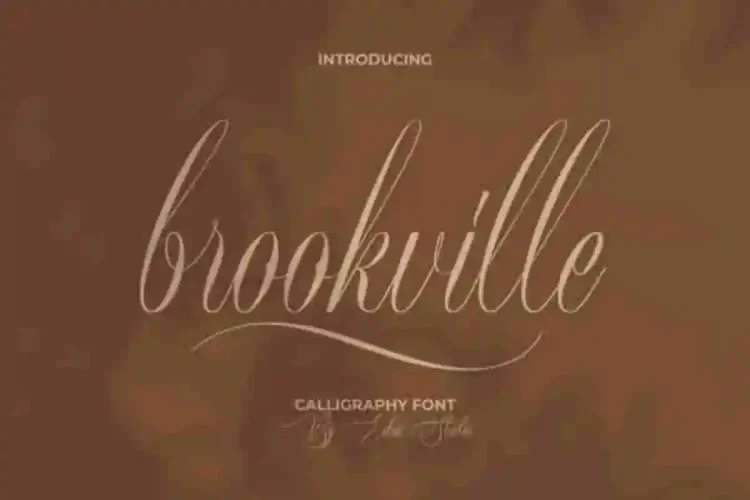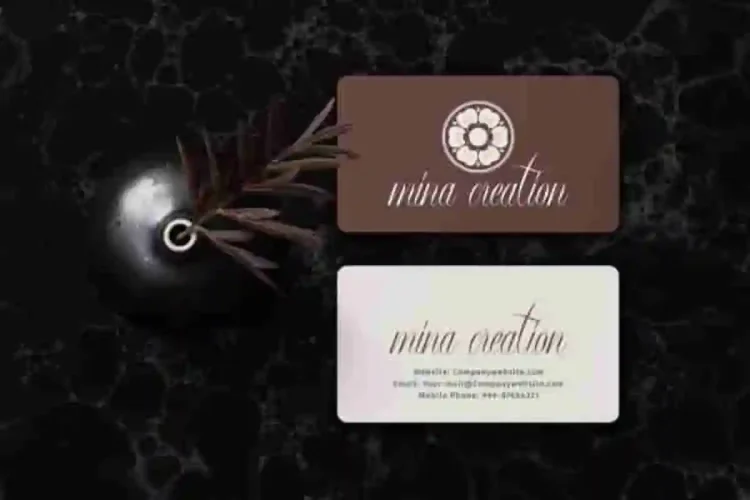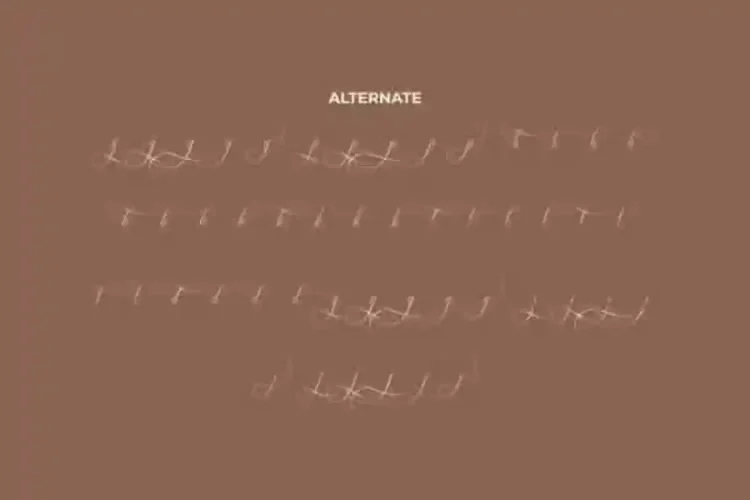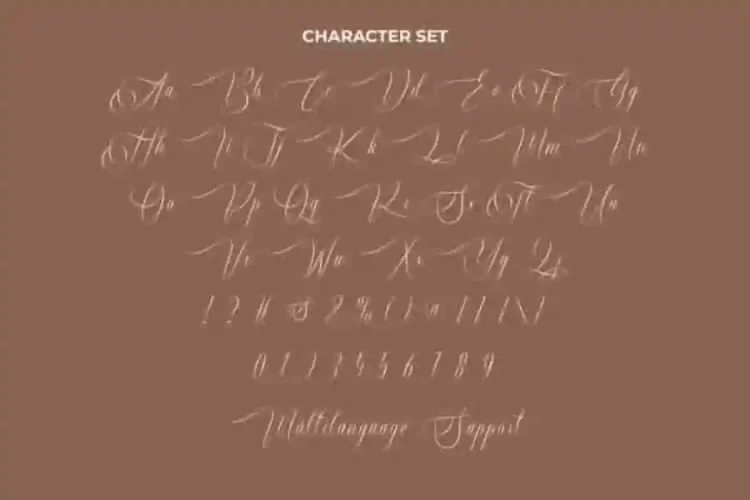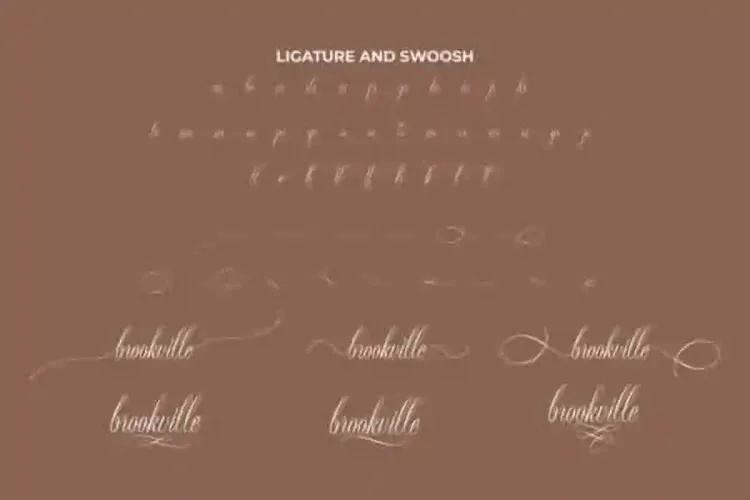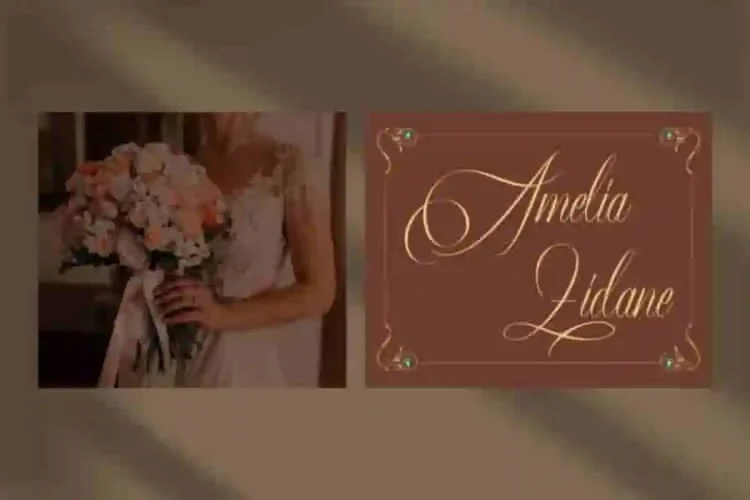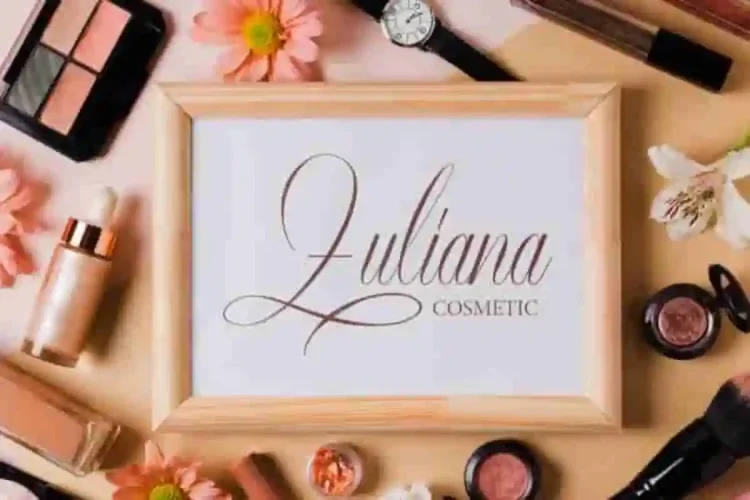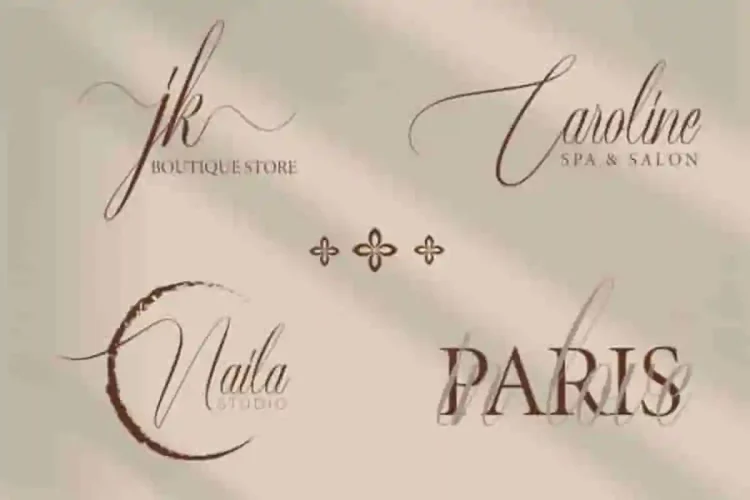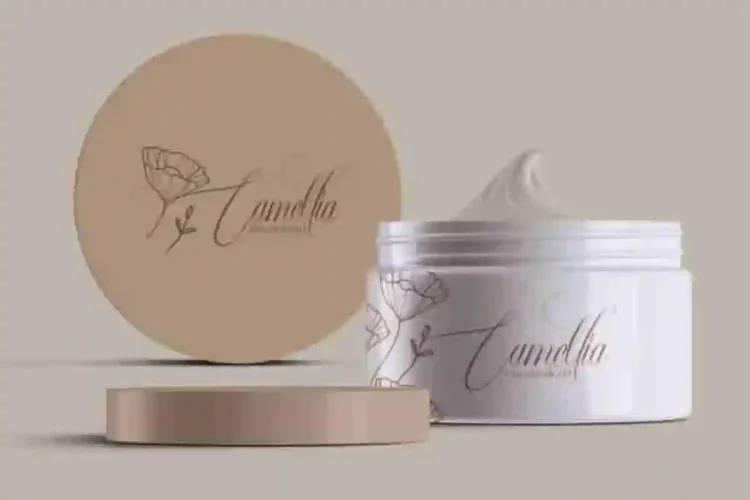
Brookville Calligraphy Font
Brookville Calligraphy Font is a calligraphy font script with stunning handwriting style, handcrafted from our Studio here in Indonesia. Brookville Calligraphy Script Font Brookville Font ensures every word looks polished and refined. It has a stunning characters set, perfectly managed with well spaced and kerning. The design theme blends simplicity with elegance, making it suitable for a wide range of creative industries.